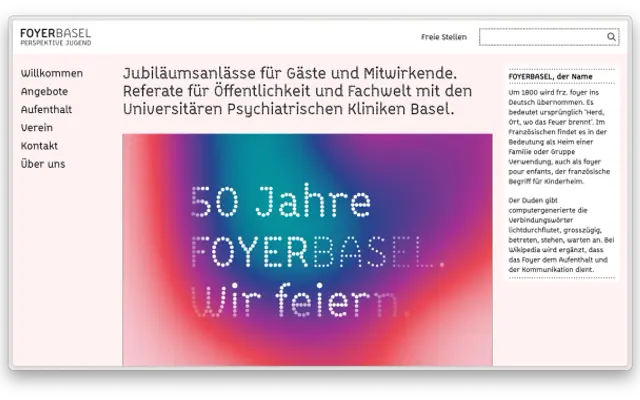
BLine
b•v-h type · André Baldinger · 2022
A geometric sans derived from its dot-matrix companion BDot, designed by André Baldinger and put to work in Parisian institutional signage and identity.
Designed in 2008 and released in 2022, BLine was developed by connecting the skeletal points of BDot, making the dot-based typeface the necessary precursor. Its very large x-height gives it strong legibility at small sizes in print and on screen, and it has already proved itself at architectural scale in the sign system of Les Halles in Paris and in the visual identity of BULAC, the university library of languages and civilisations. Twelve styles run from ExtraThin to ExtraBold with matching italics, supported by a rich glyph set of over 820 characters including circled and framed letterforms via Stylistic Sets.
BLine is a geometric sans-serif derived from BDot, built by connecting the skeletal points of its dot-based predecessor. Its very large x-height and constructed letterforms align it firmly with geometric sans tradition.